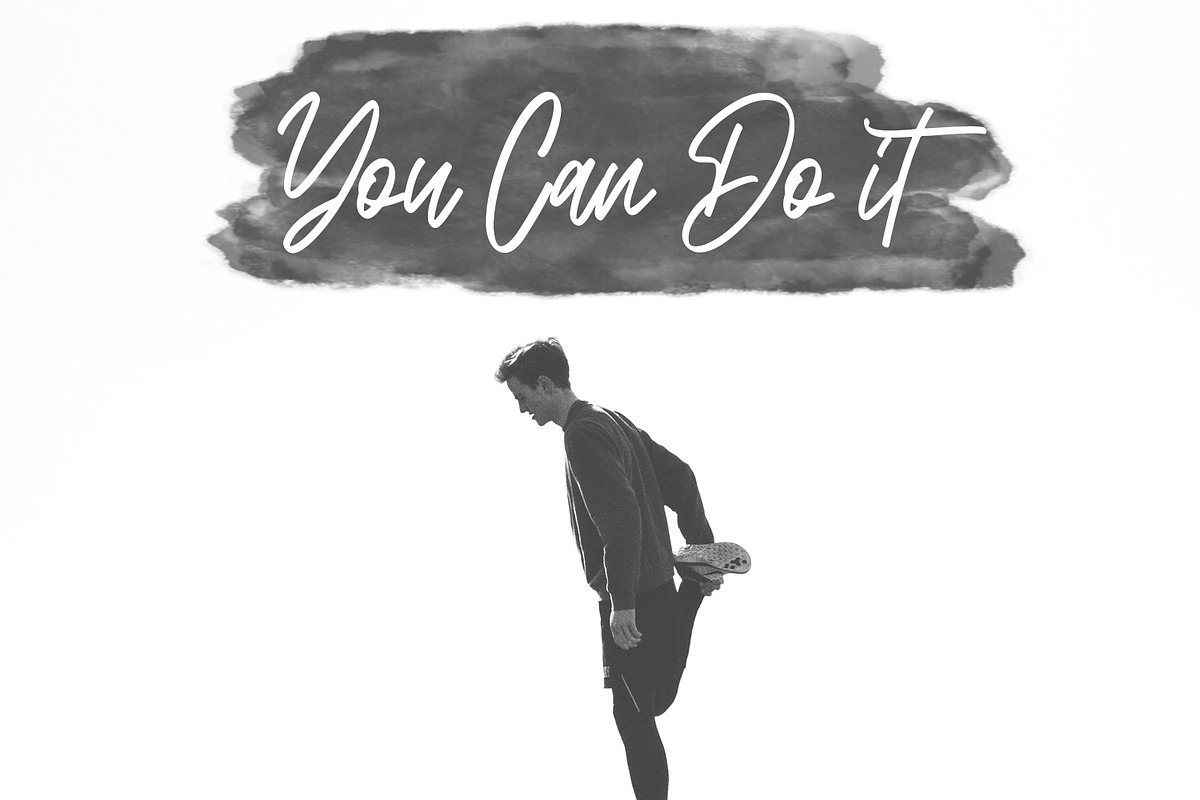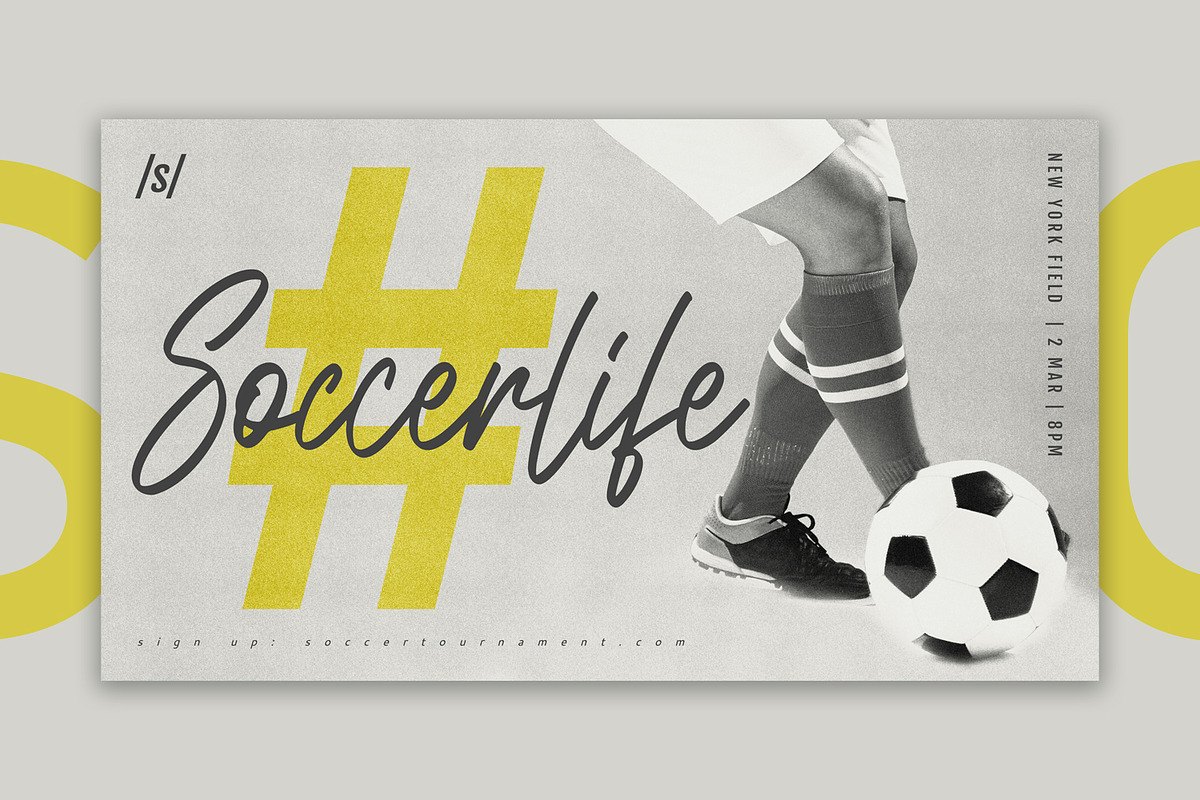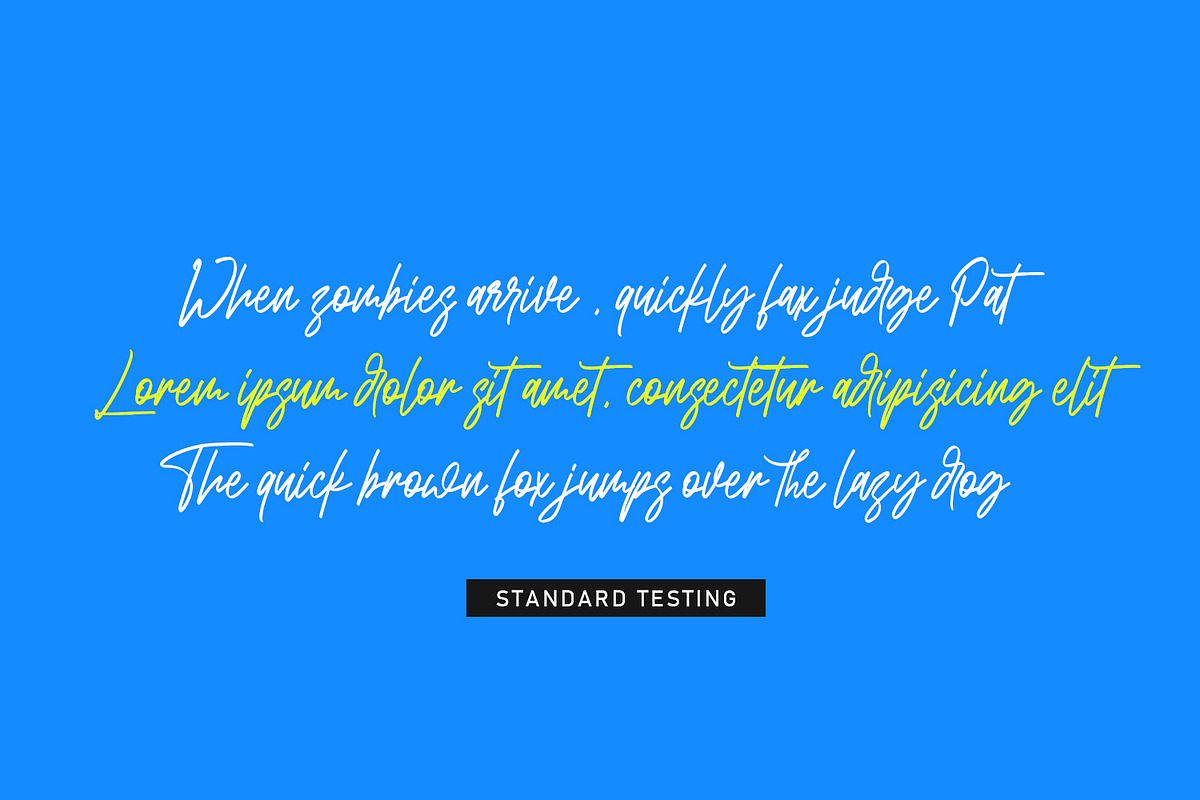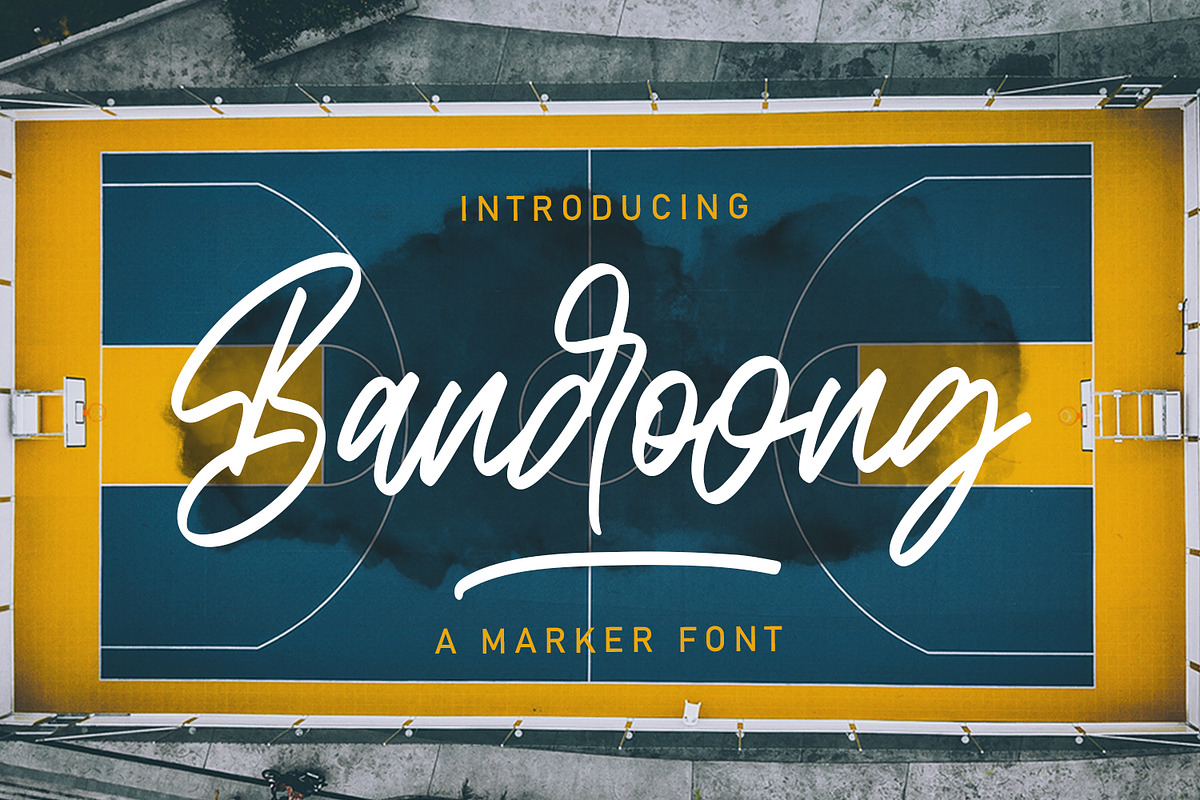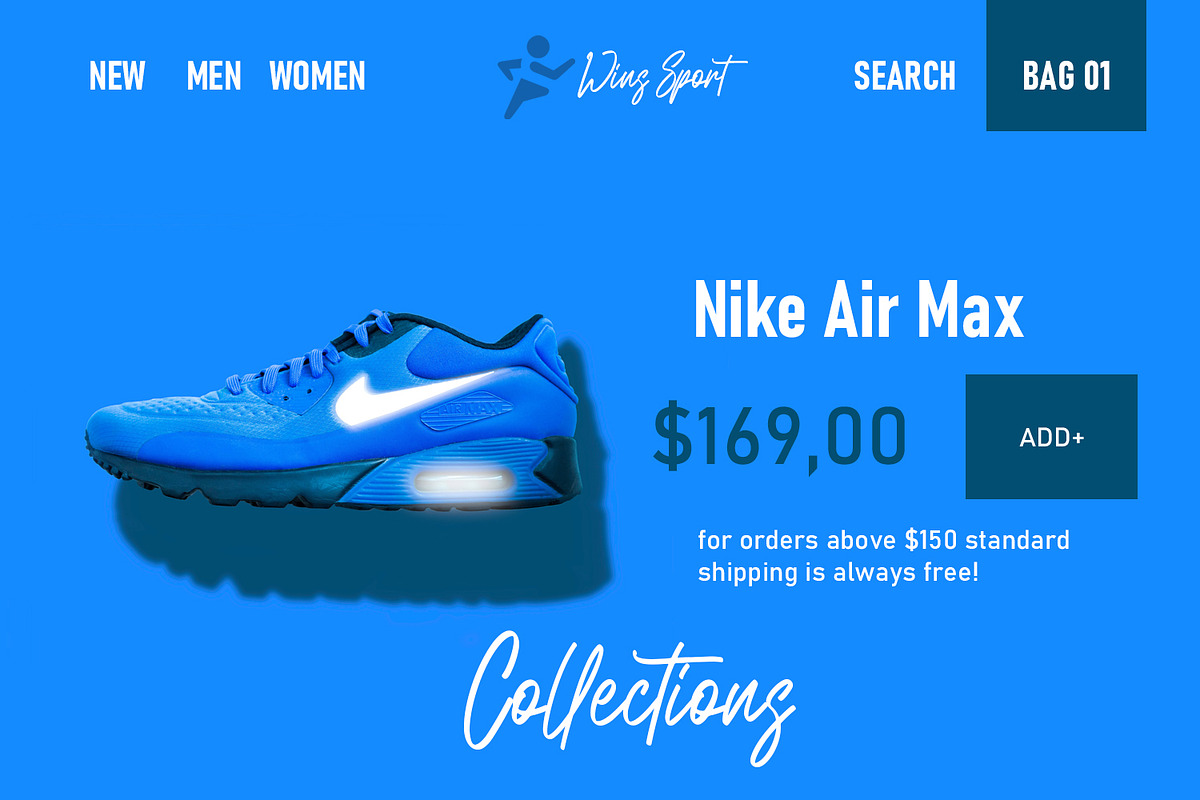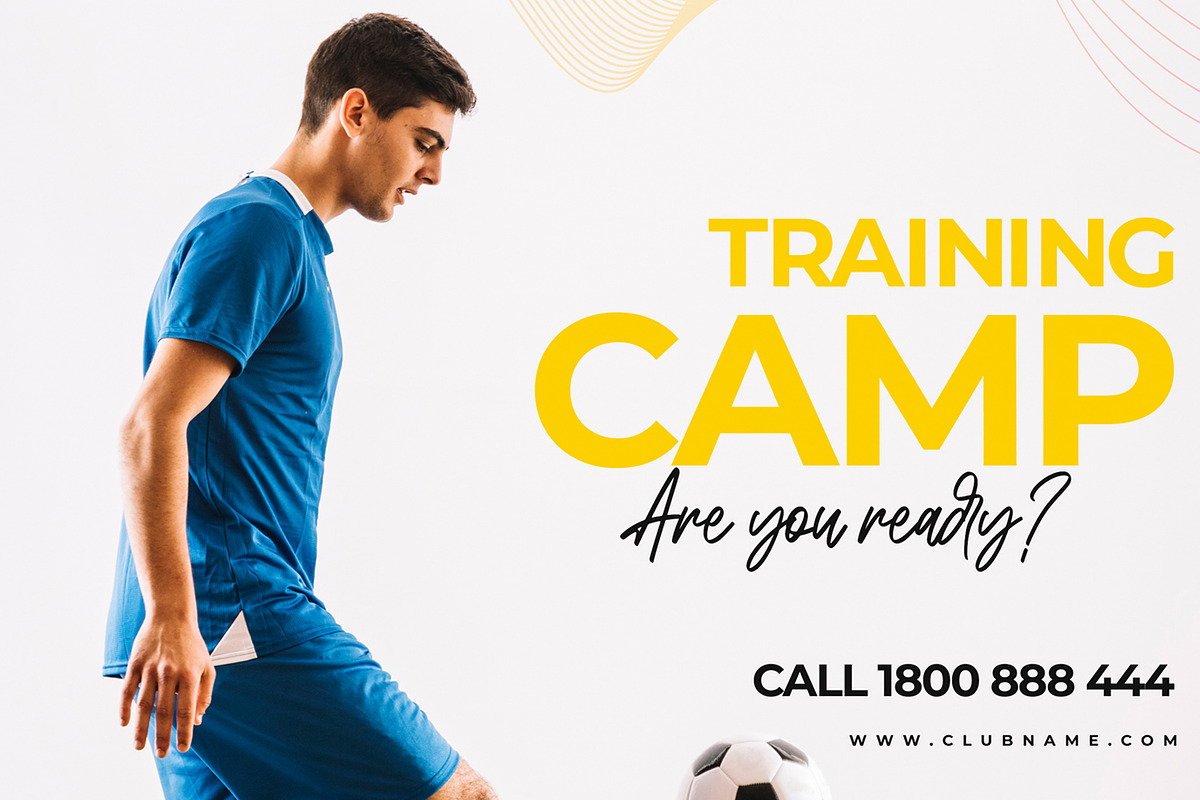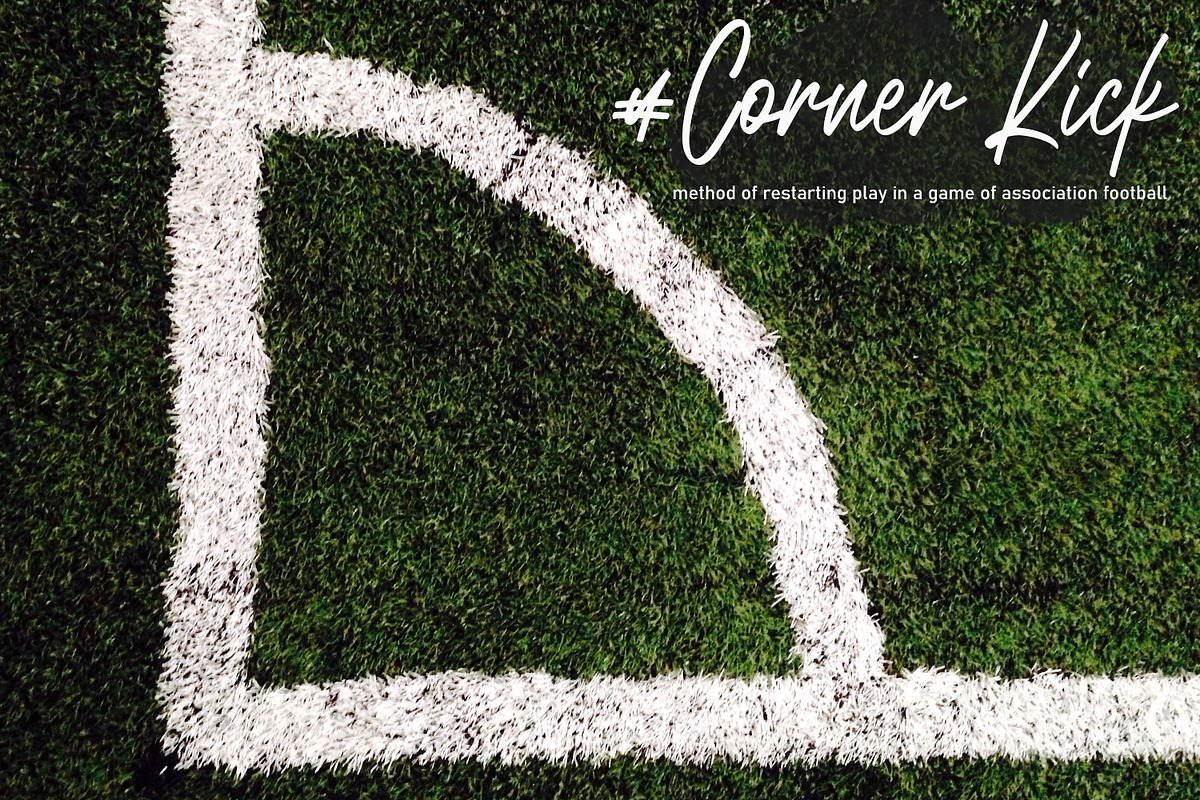
Bandoong - Modern Script Font
Introducing a new font called Bandoong inspired by urban script fonts with sharp and beautiful letters that create fonts that are modern, tendy and elegant. Bandoong came with opentype features such stylistic alternates, stylistic sets & ligatures good for logotype, poster, badge, book cover, tshirt design, packaging and any more.